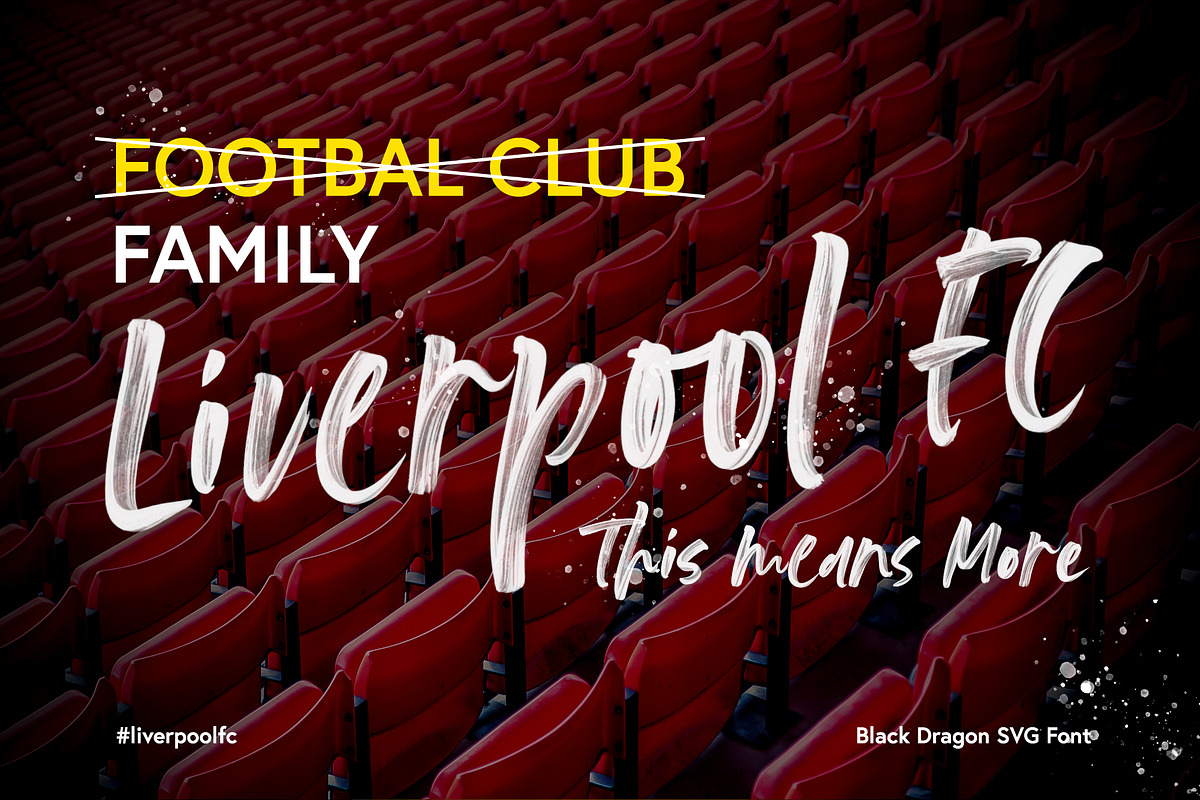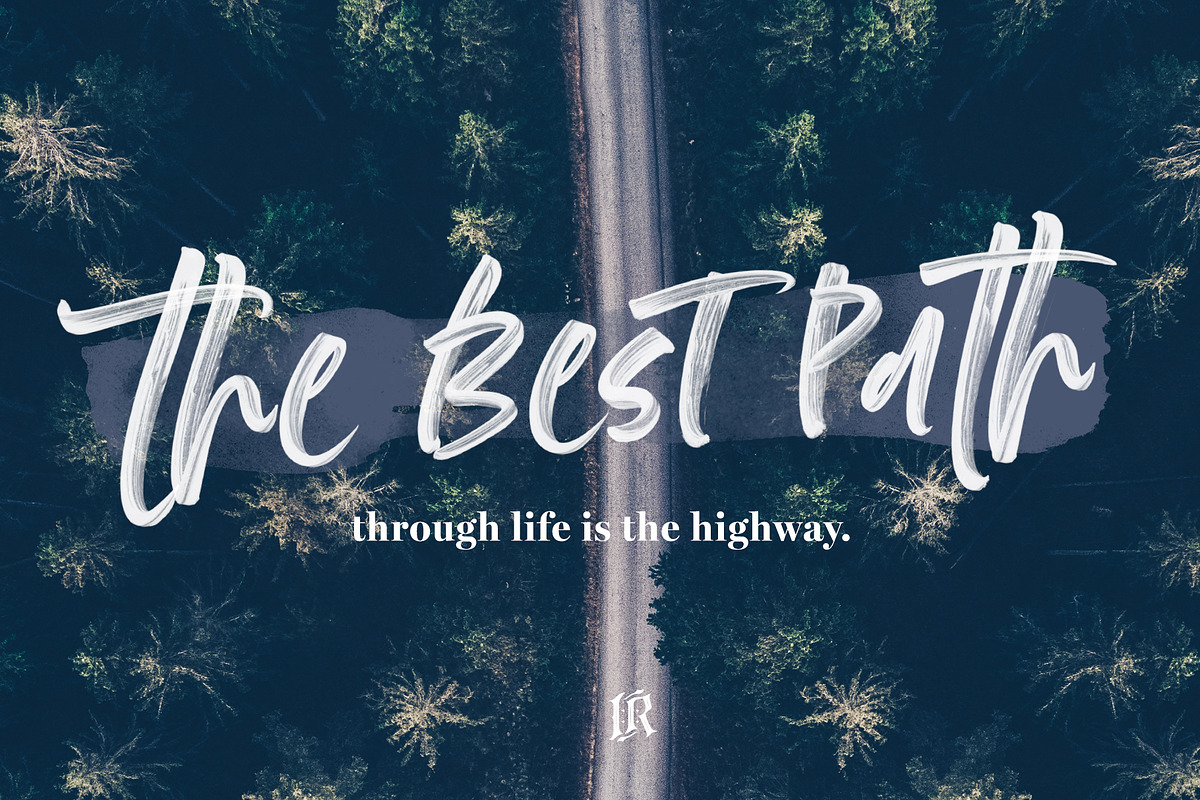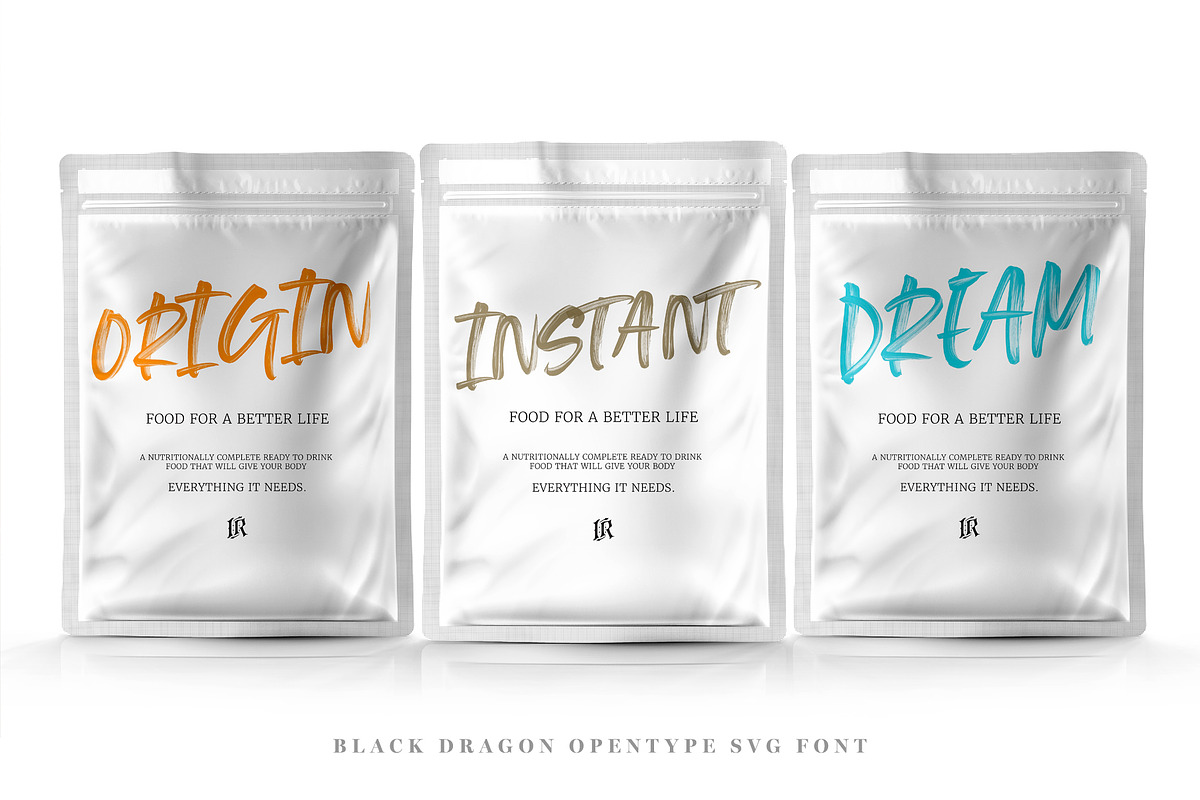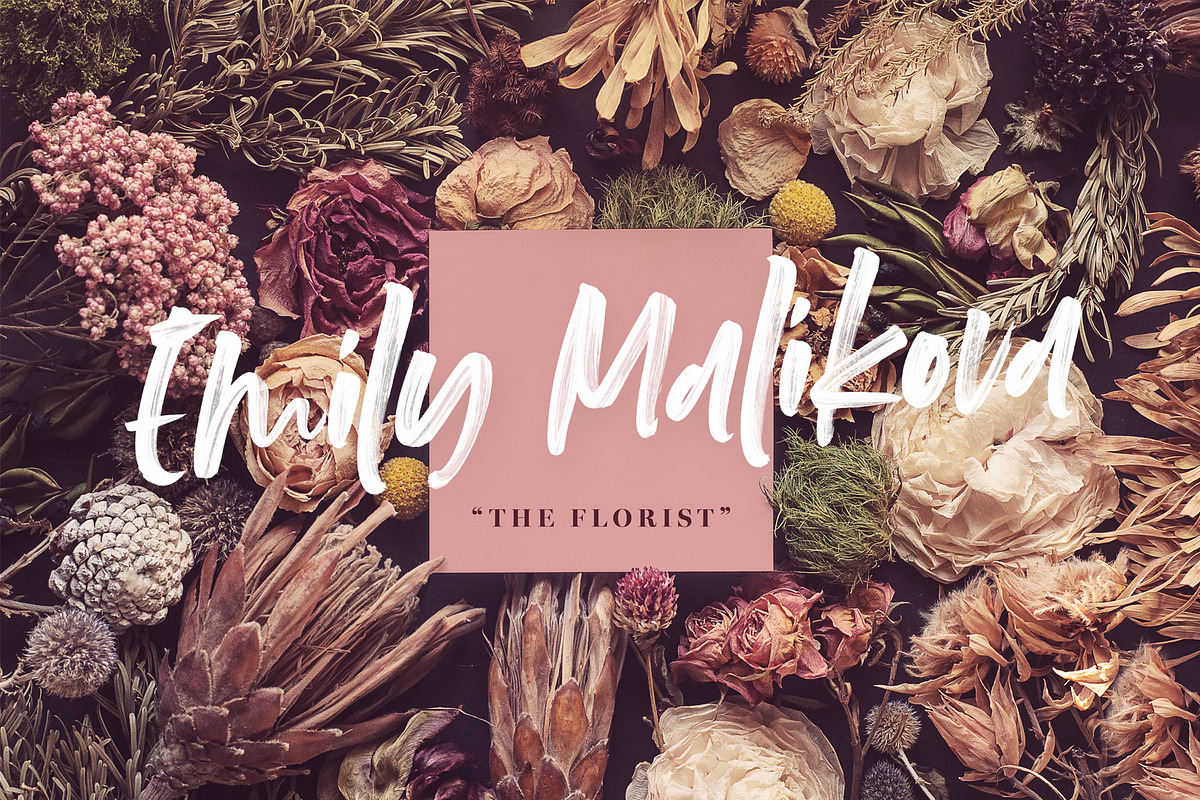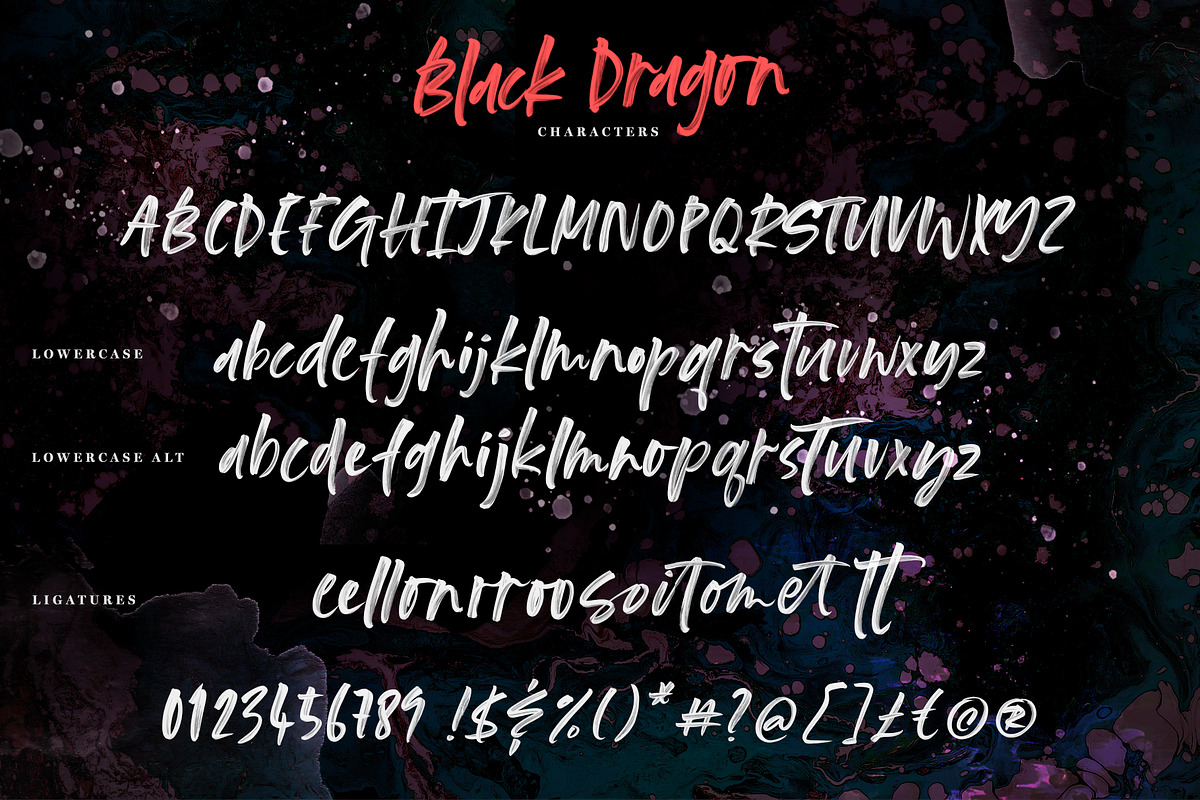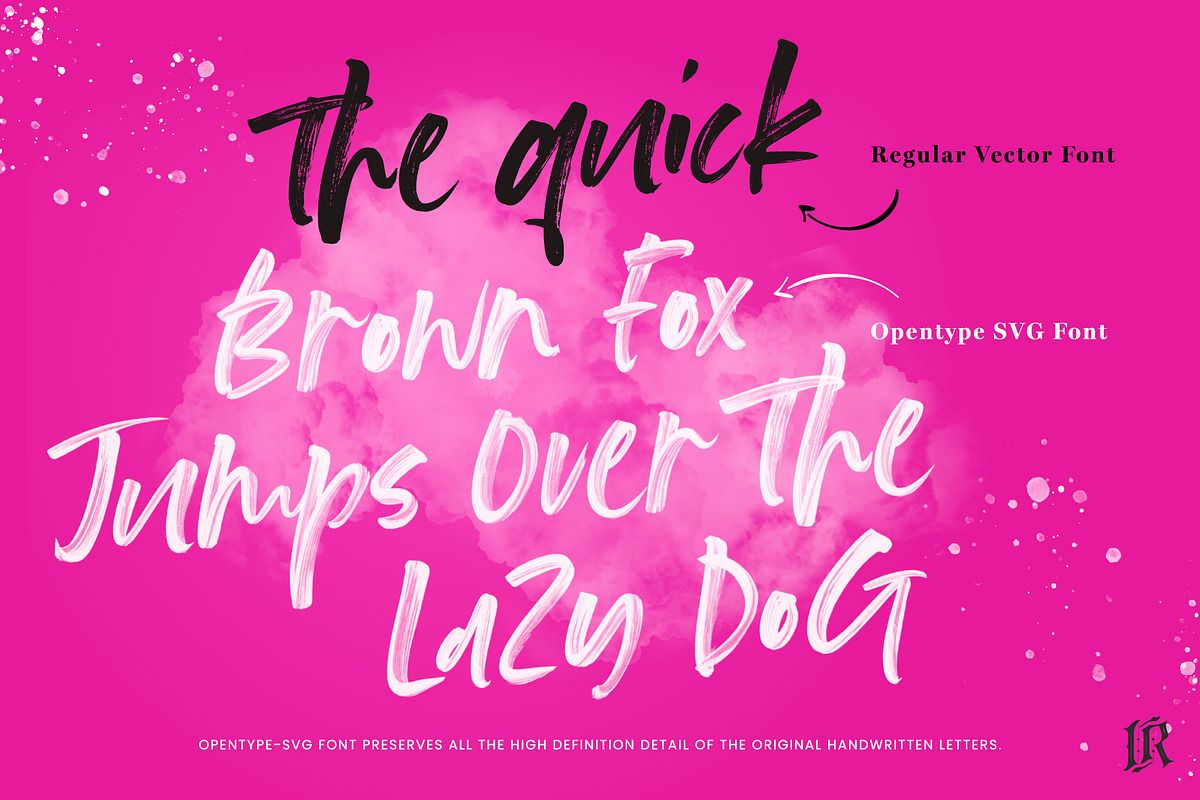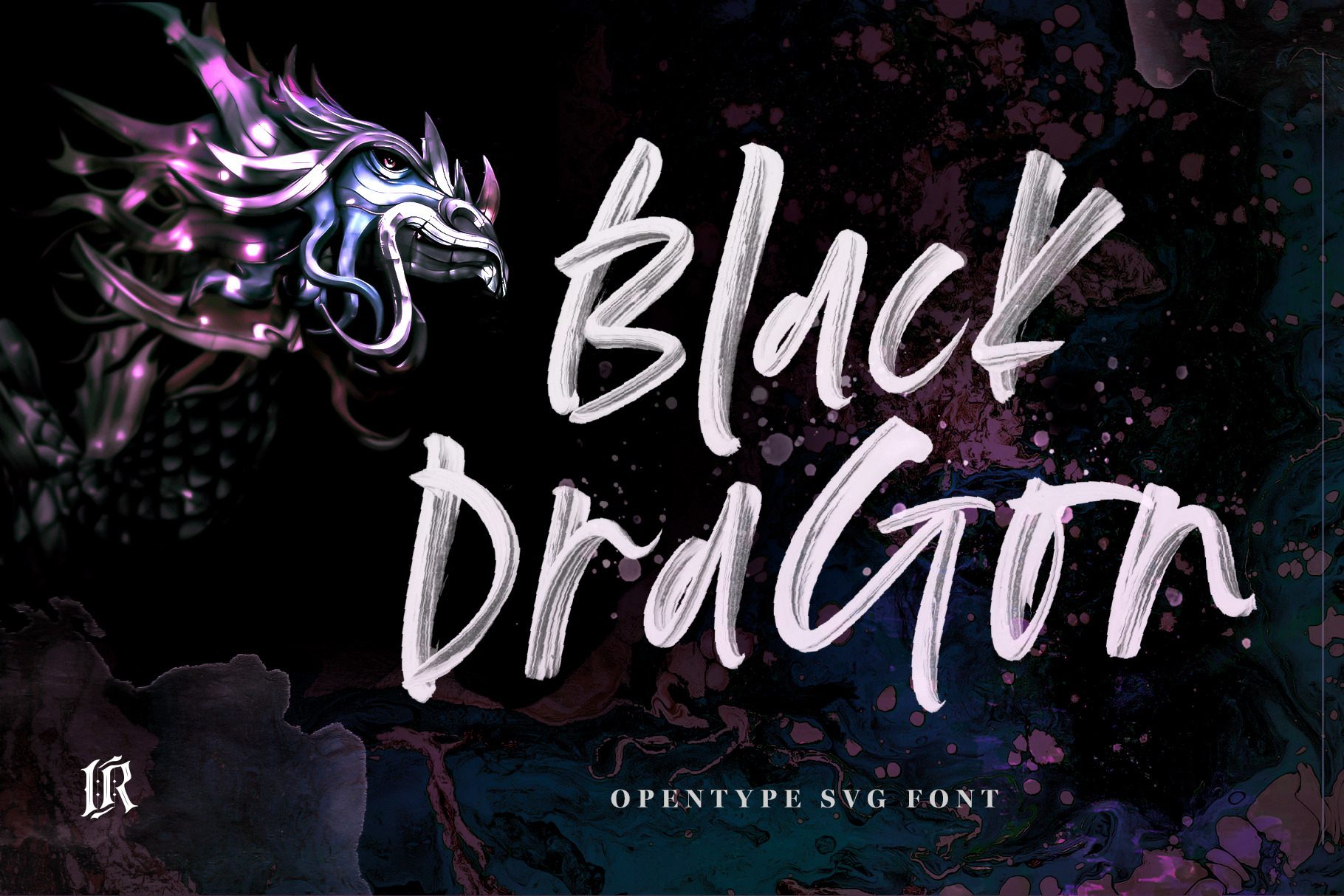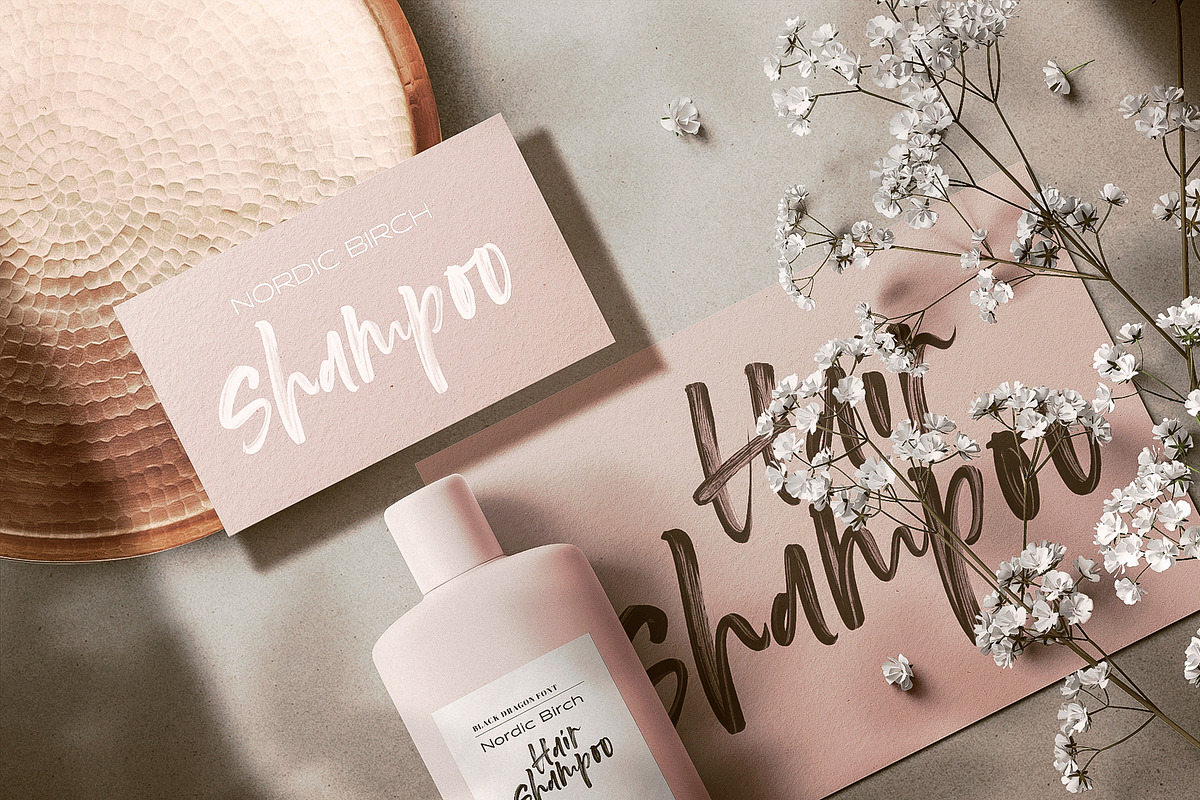
Black Dragon SVG Font
Black Dragon SVG Font preserves all the high definition detail of the original handwritten letters. Using OpenType-SVG technology it truly looks realistic. The OpenType-SVG format requires Photoshop CC 2017 or Illustrator CC 2018 (or newer). Regular OTF format is also included.
- Black Dragon SVG Font - A high definition OpenSVG brush font with realistic texture (You need to be using Photoshop CC 2017.1.1, Illustrator CC 2018 or later)